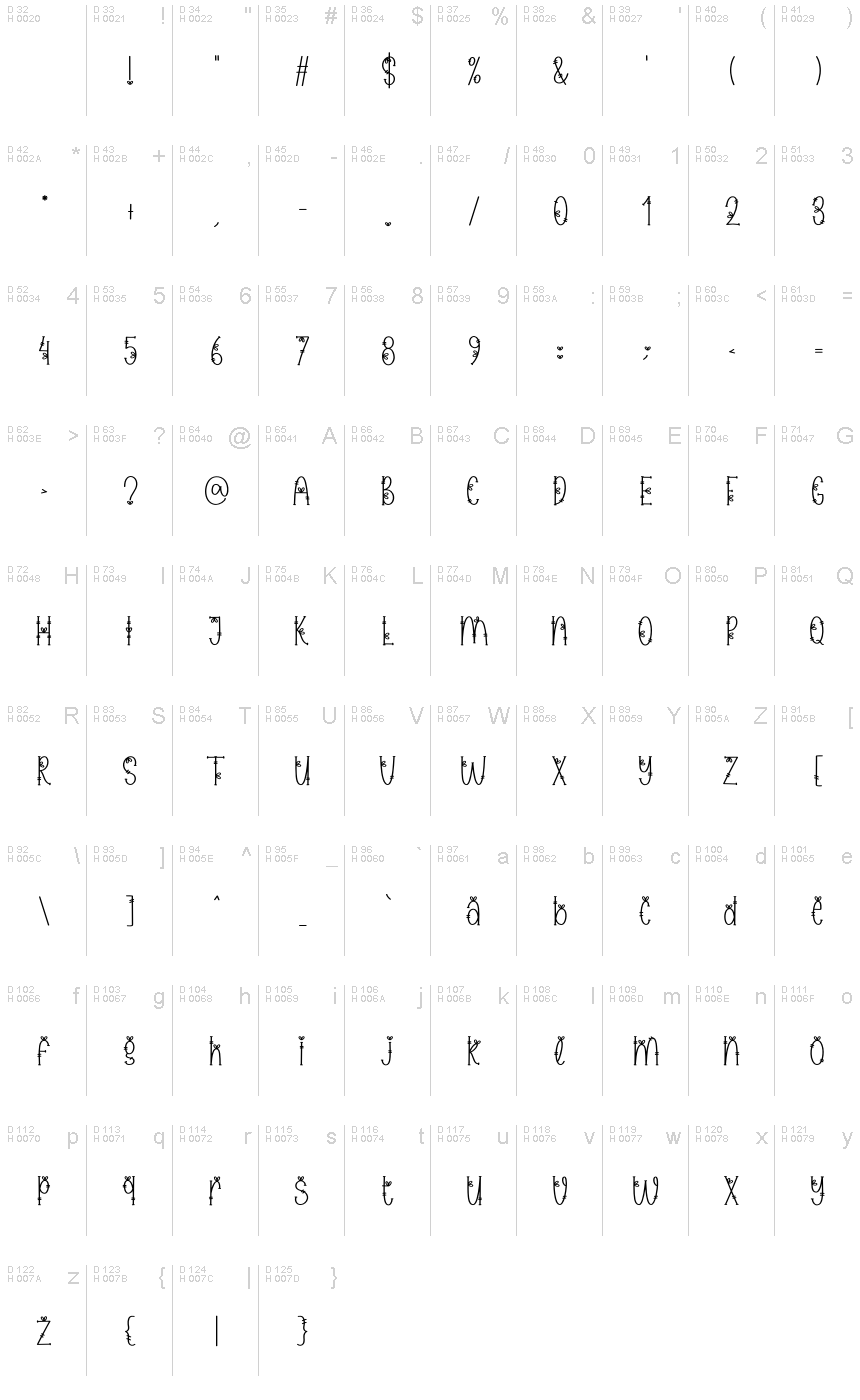
Flower Symbol
Flower Symbol, crafted by Scratchones, is a decorative display font that blooms with creativity. Its whimsical strokes and floral motifs capture the essence of a spring garden in typography form, making each character feel like a unique piece of art. The font's delicate and artistic flair lends itself to designs that require a touch of nature's elegance.
Perfect for special invitations, branding projects with an organic theme, or any visual work seeking to convey freshness and growth, Flower Symbol flourishes in settings that value charm and sophistication. Its condensed style allows for impactful statements in limited spaces while maintaining readability—a rare blend of decorative beauty and functional design.